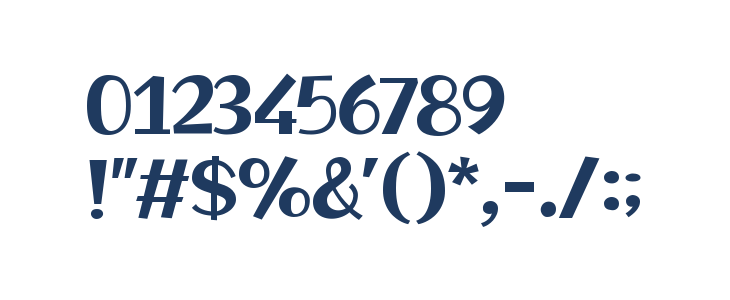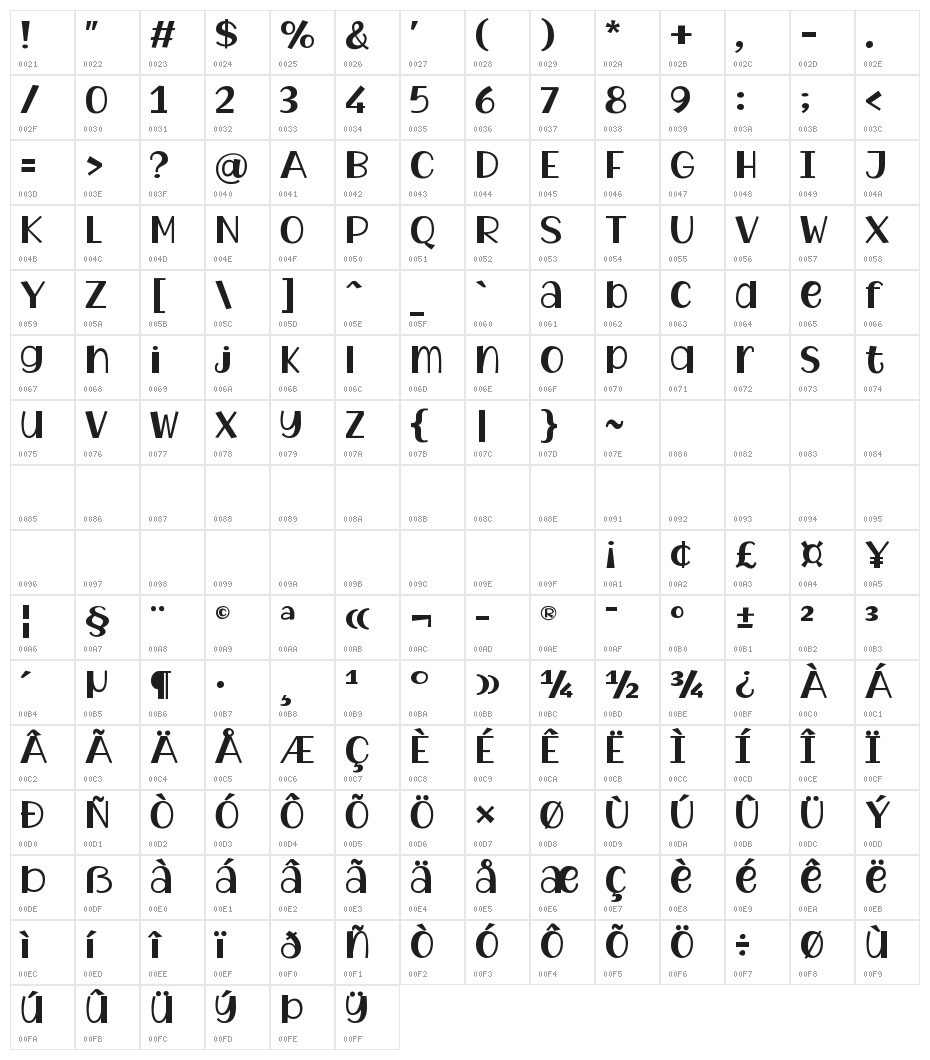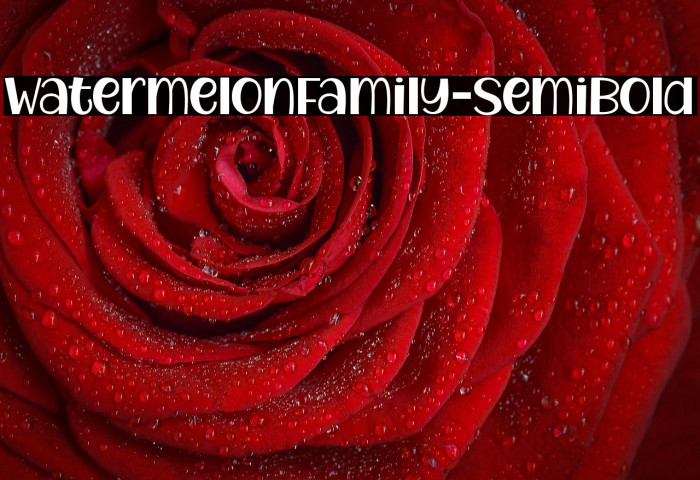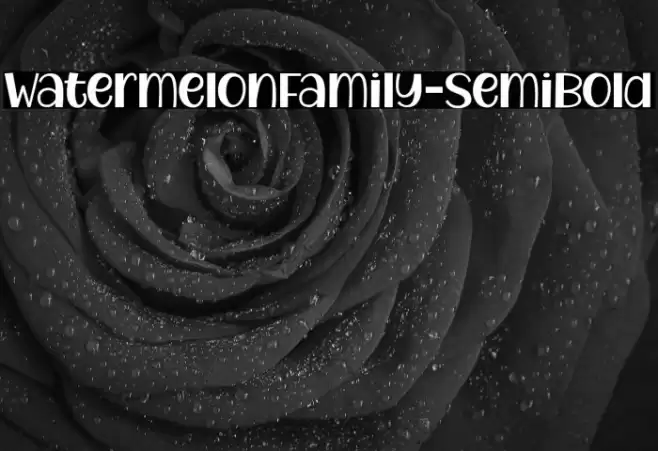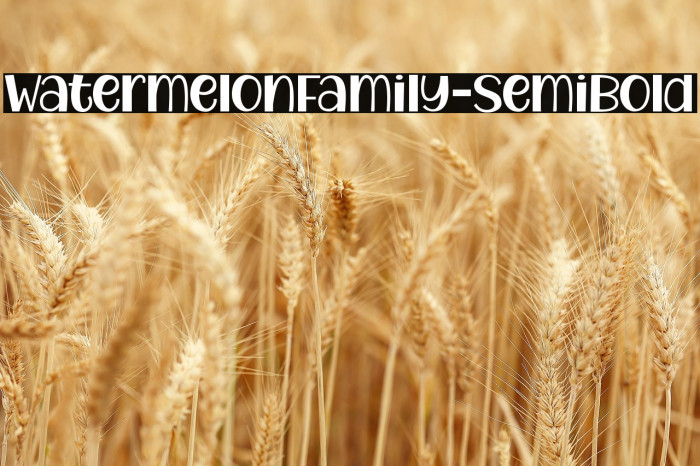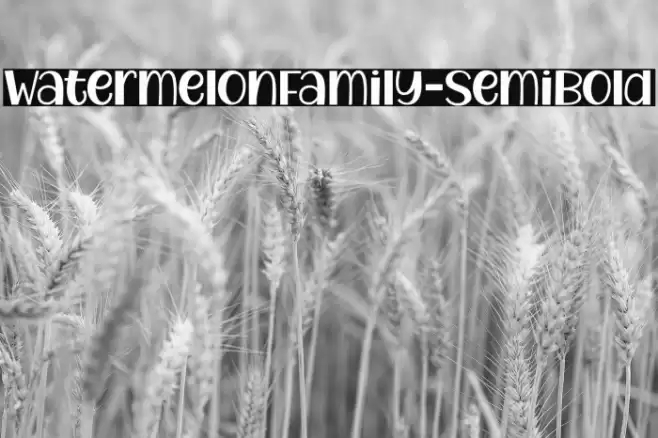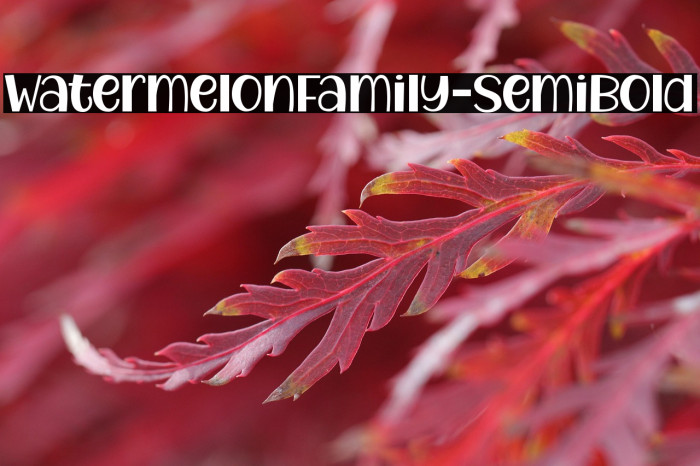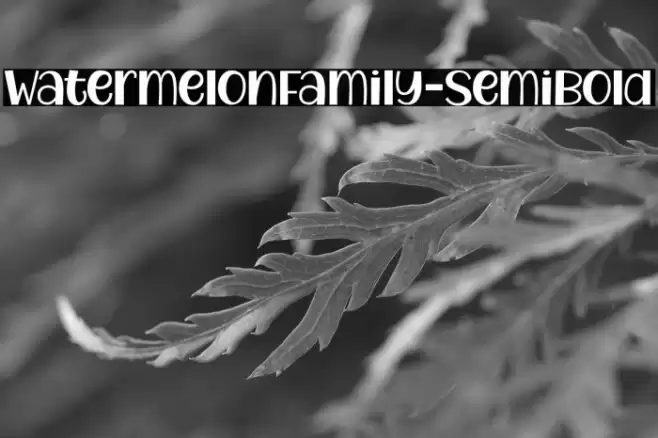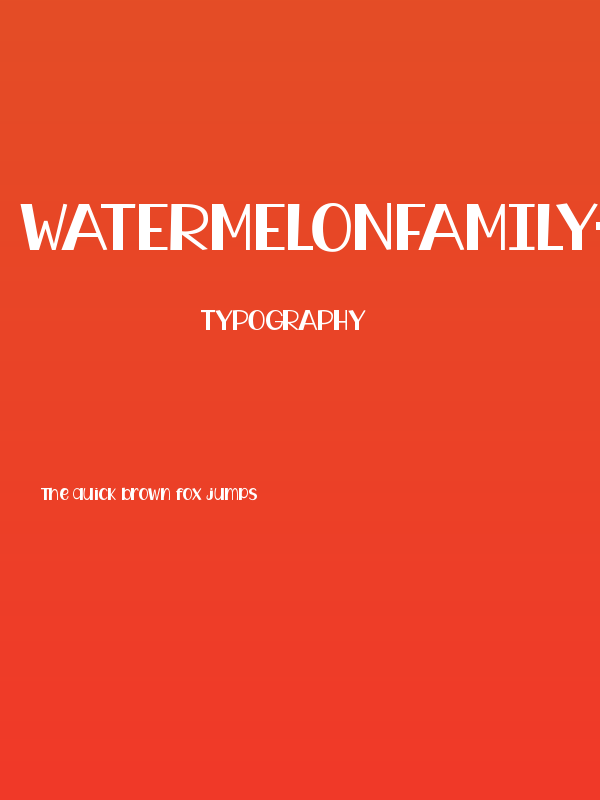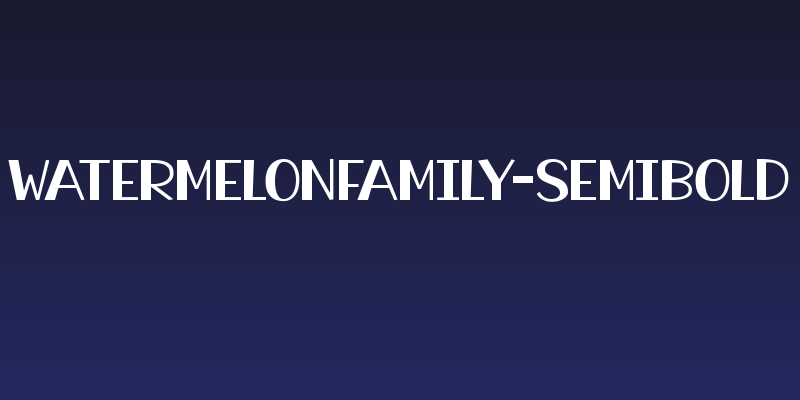
WatermelonFamily-SemiBold Font
WatermelonFamily-SemiBold Description
This font features a playful and bold design with a unique blend of rounded and angular elements. The uppercase letters exhibit a strong presence with their thick strokes and slightly condensed form, while the lowercase letters maintain a consistent style with a touch of whimsy. The numerals are bold and easily readable, complementing the overall aesthetic. Special characters are creatively designed, adding to the font's distinctive charm. This typeface is ideal for projects that require a fun and engaging visual impact.
| Proposed Projects | Ideal for children's books, playful branding, posters, and creative advertising campaigns. |